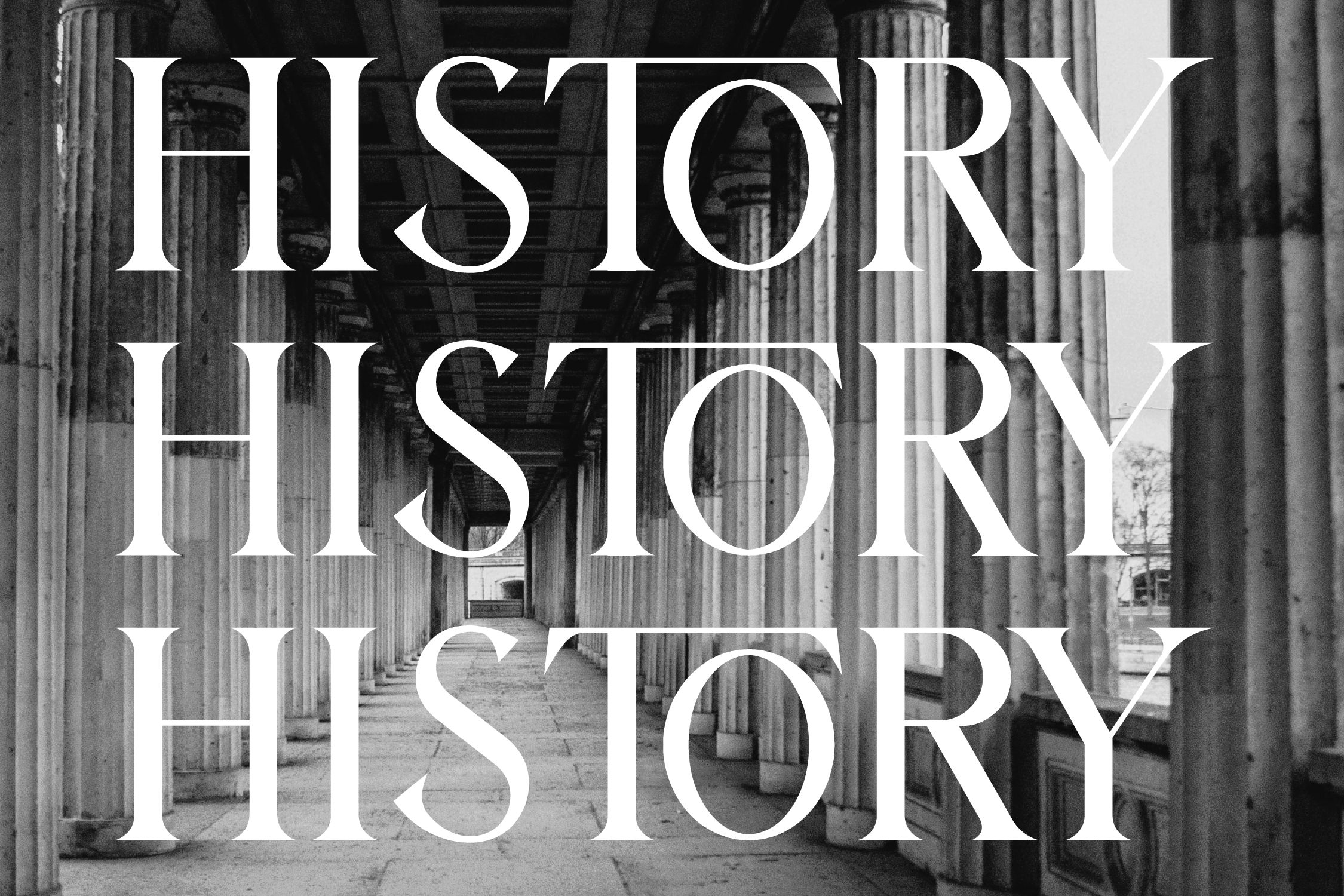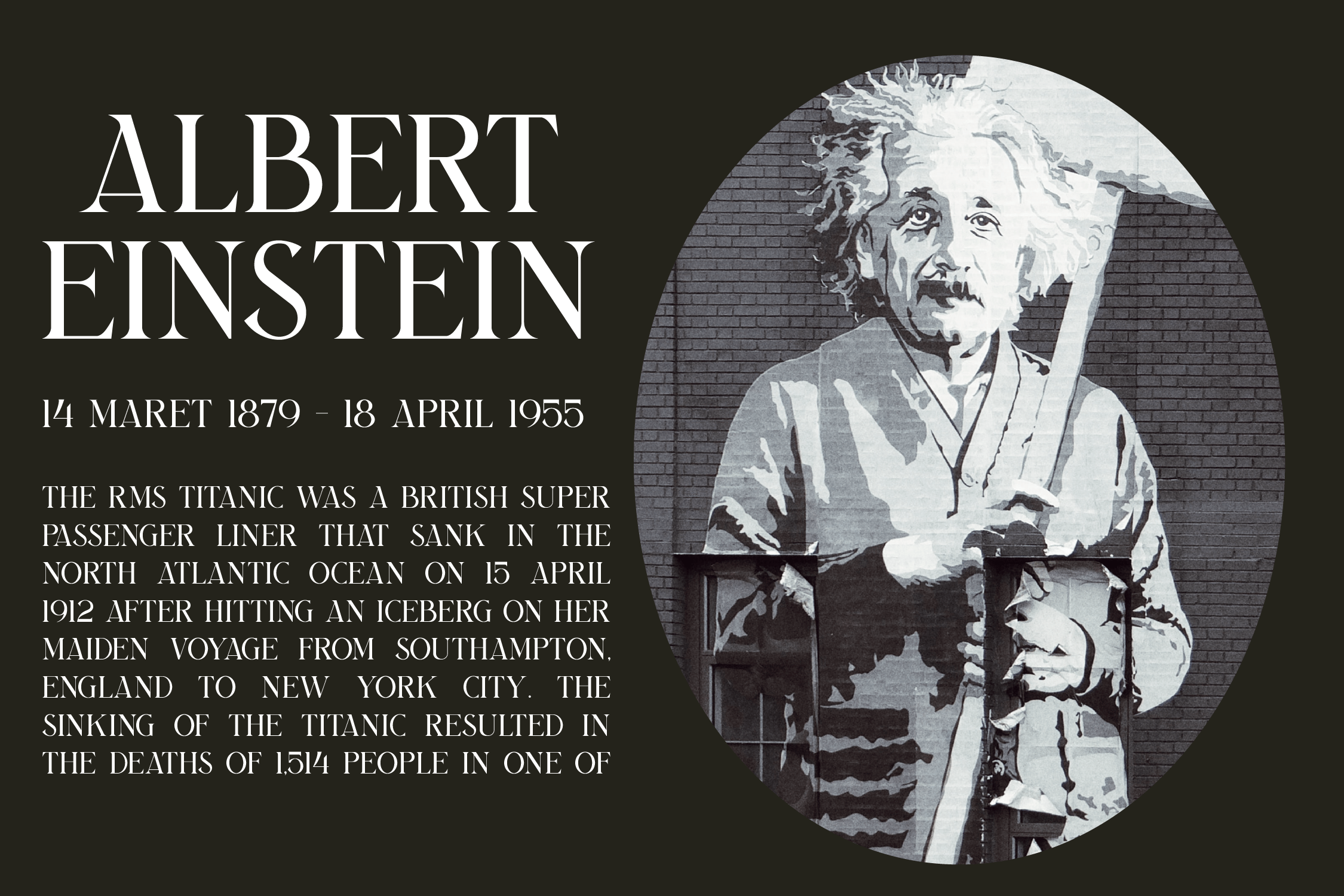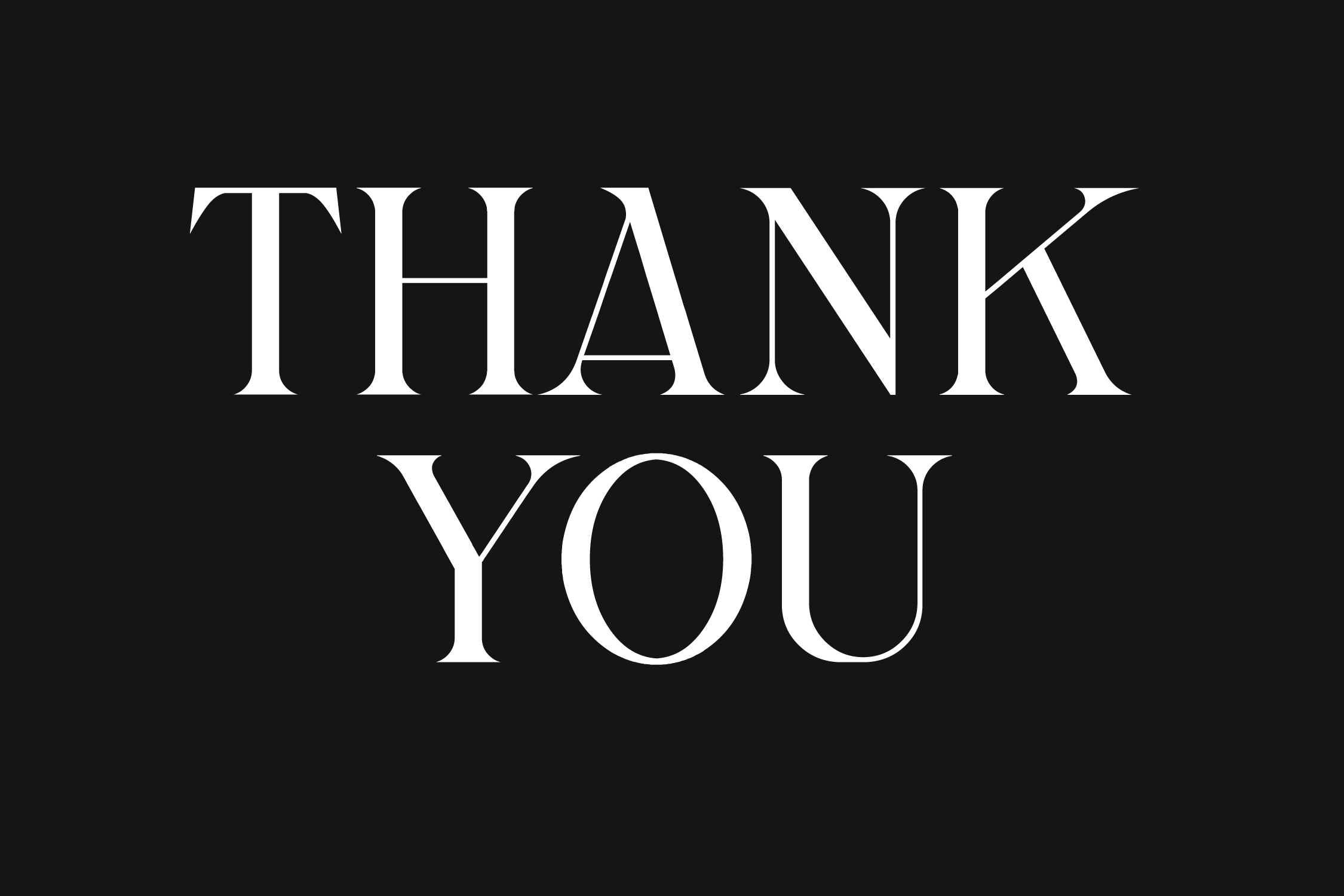
Bilargy Classic Font
Bilargy Classic Serif Font is a modern and classic serif typeface that has a unique modern style & look. This typeface is perfect for elegant & luxurious logos, book or movie title designs, fashion brands, magazines, clothing, fonts, quotes and more.